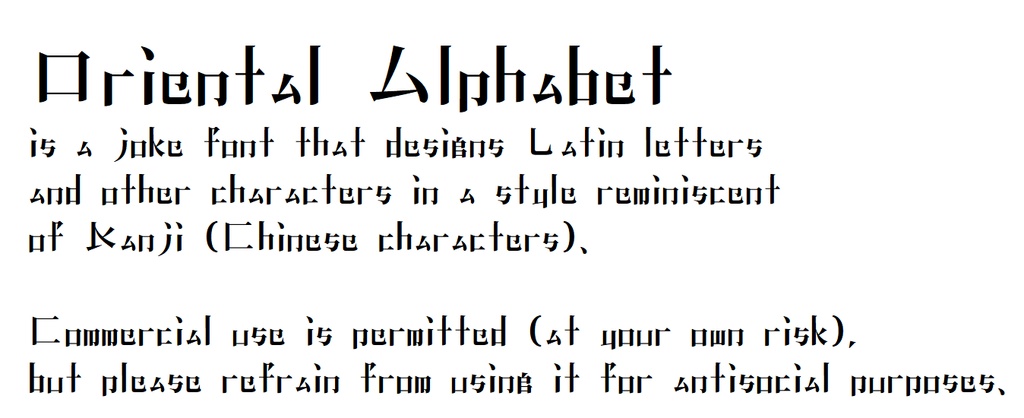
Oriental Alphabet (Free font)
Oriental Alphabet is a joke font that designs Latin letters and other characters in a style reminiscent of Chinese characters. Commercial use is permitted (at your own risk), but please refrain from using it for antisocial purposes. Includes: the minimum necessary Latin, Greek, and Cyrillic alphabets.